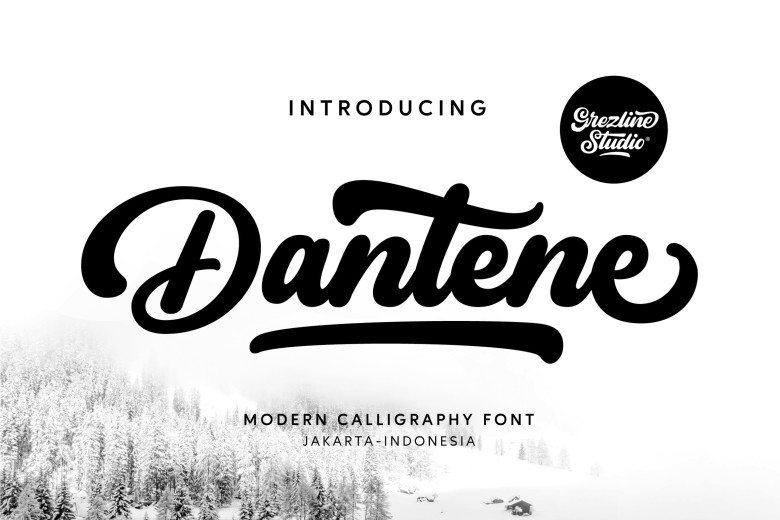
Dantene Font
Dantene is a contemporary script font I crafted carefully. It makes an ideal choice for typography designs, logotypes and packaging including T-shirt designs, labels and posters as well as headings, letterheads signage or anything that needs an attractive modern aesthetic. Plus you can mix and match this font to give your designs an original and trendy feel!
Dantene Calligraphy Script Font